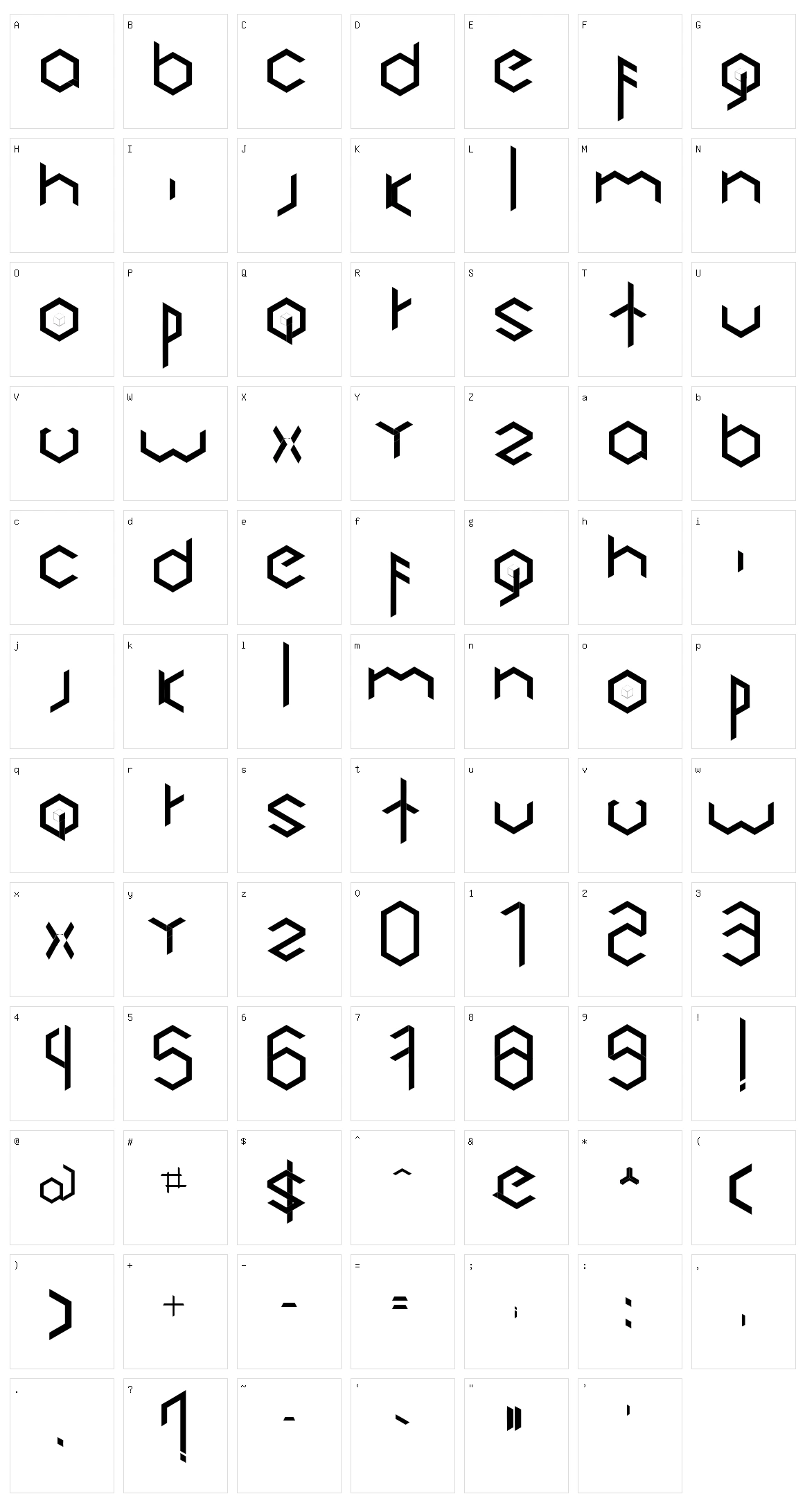
The free font Cubic is carefully designed by Valdeir Junior, showcasing a thoughtful balance of creativity and usability and falls under the Square font style. When you download the ZIP file, it contains only 15.96 KB of font files, making it lightweight and quick to download. Please review the license details below to understand permitted usage and distribution rights. If license information is not available, we recommend using this font for personal projects only or contacting the author directly for commercial usage permissions.